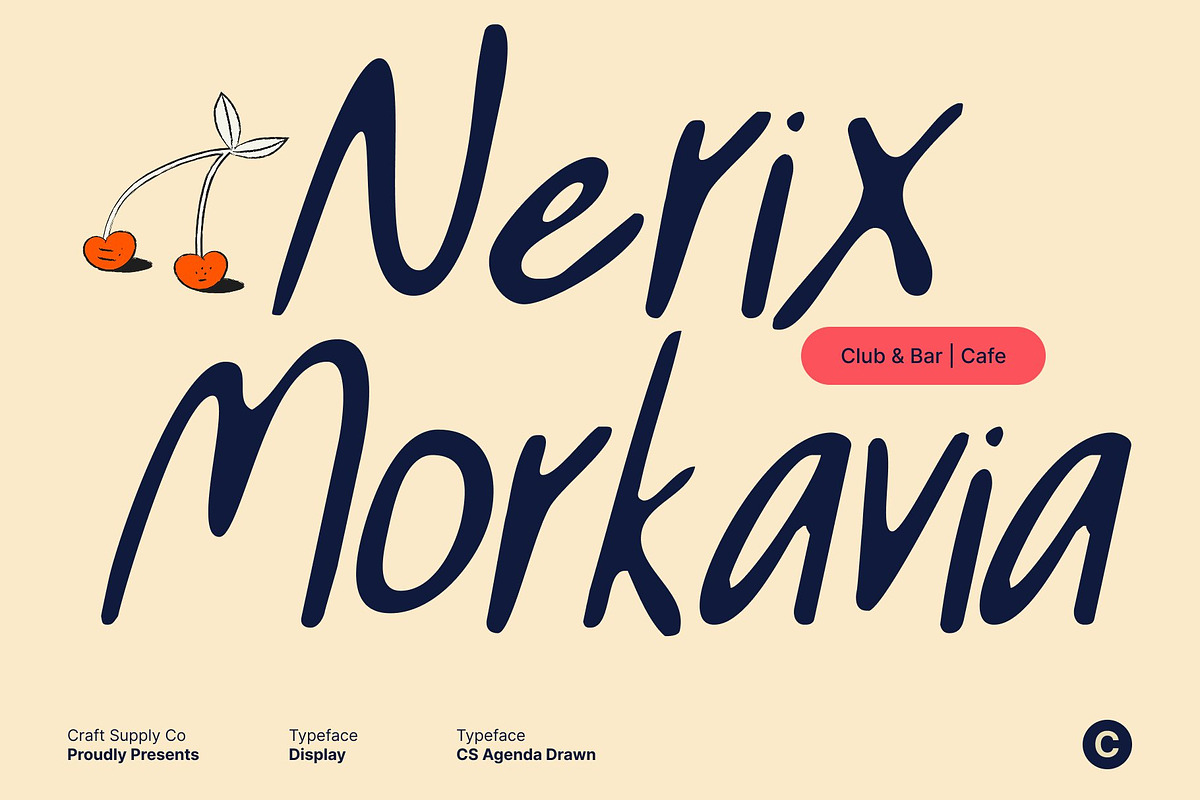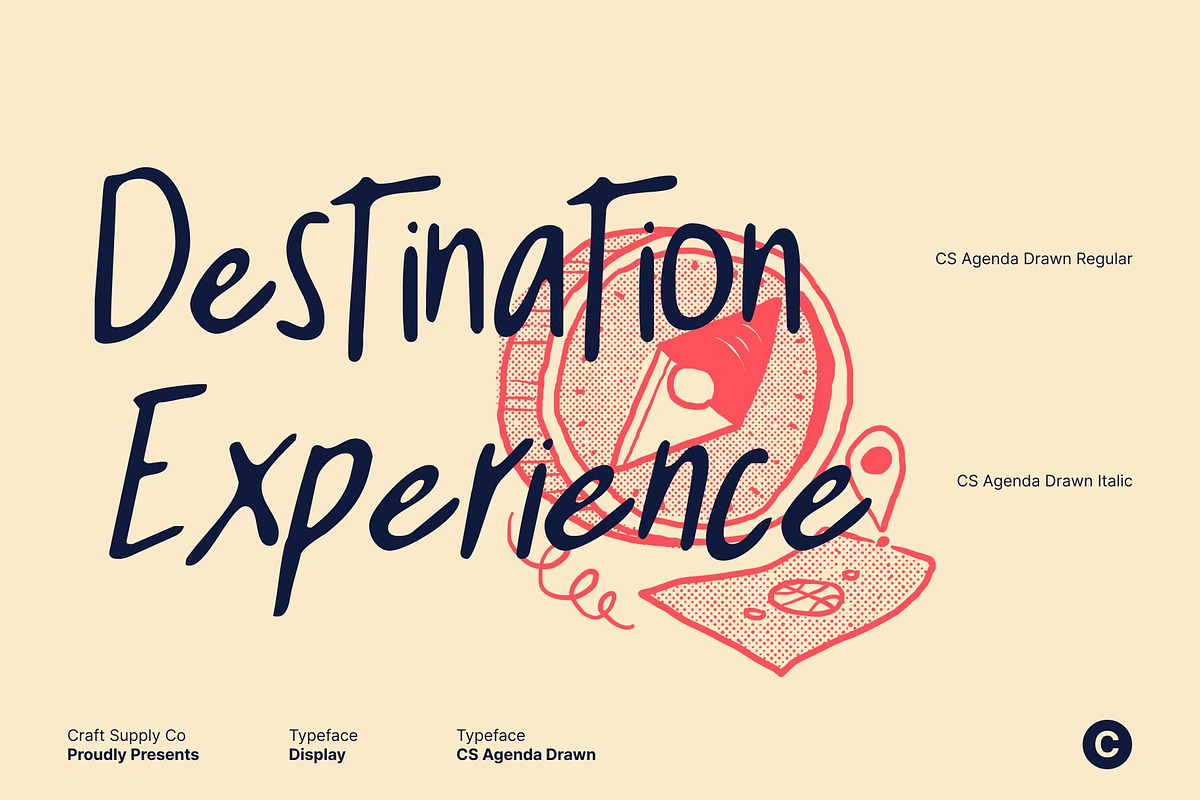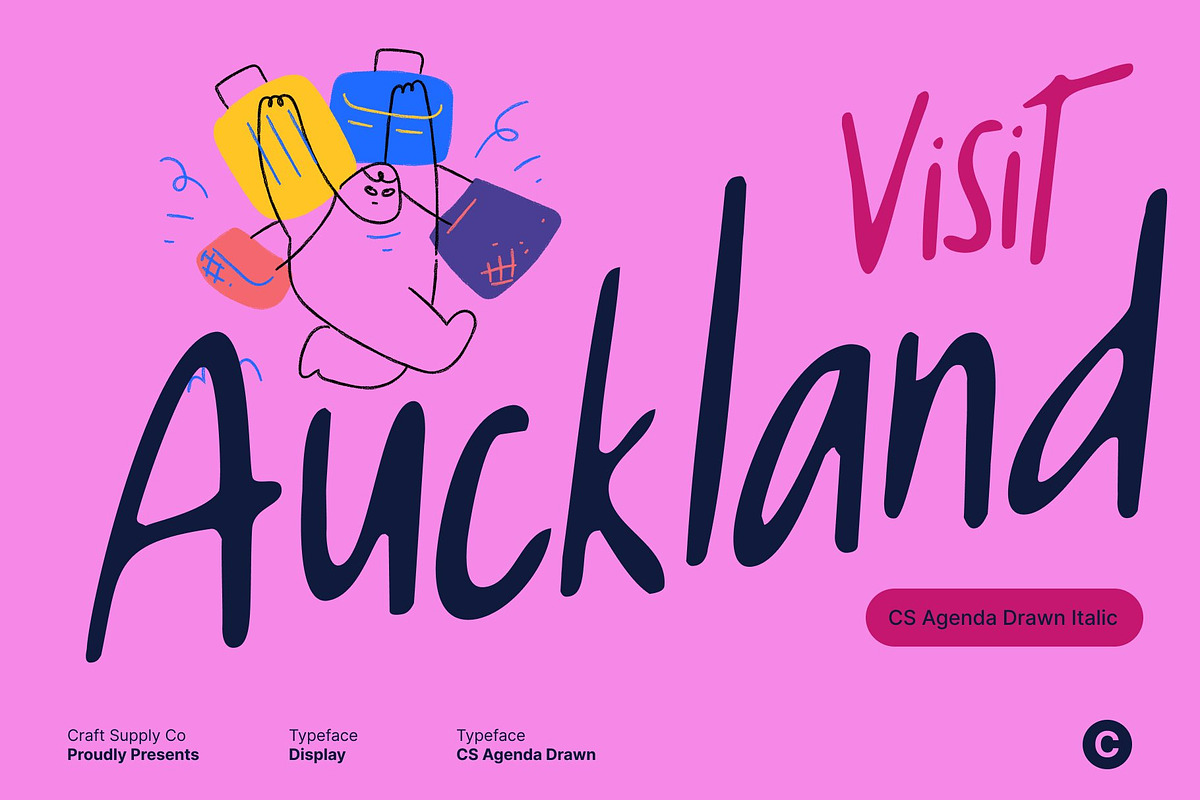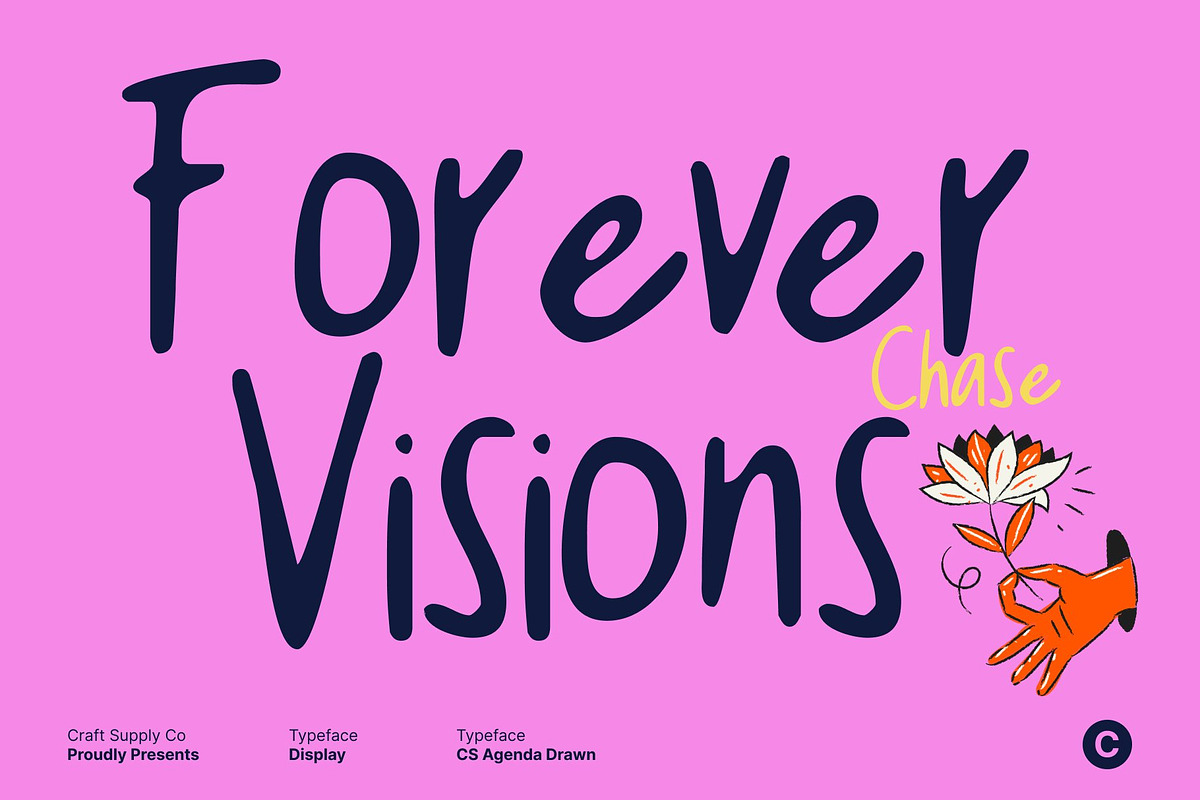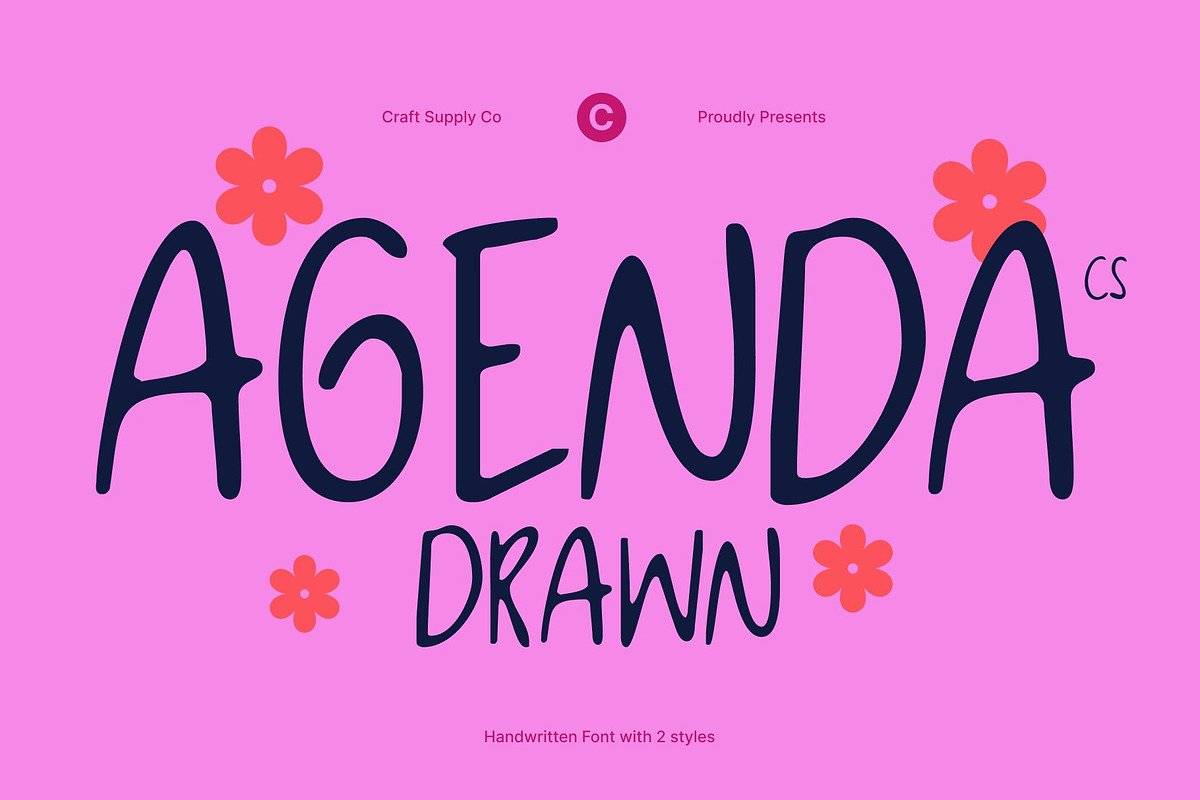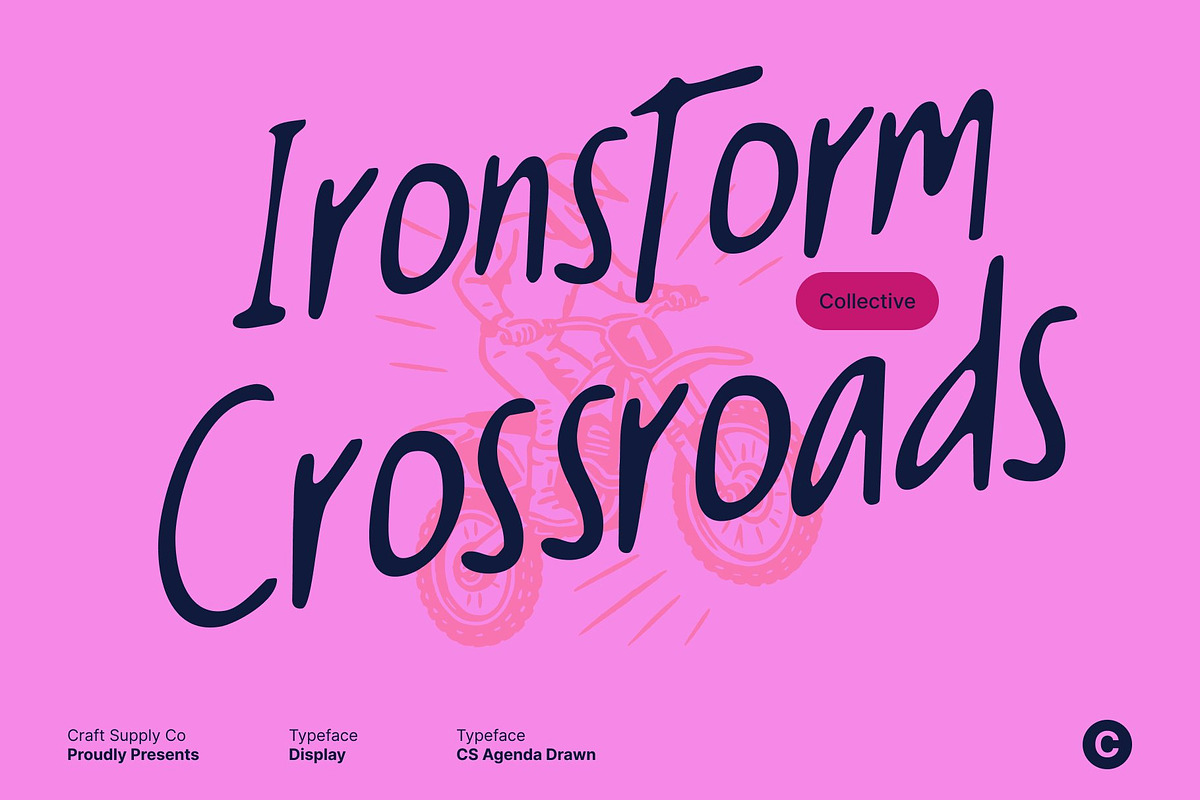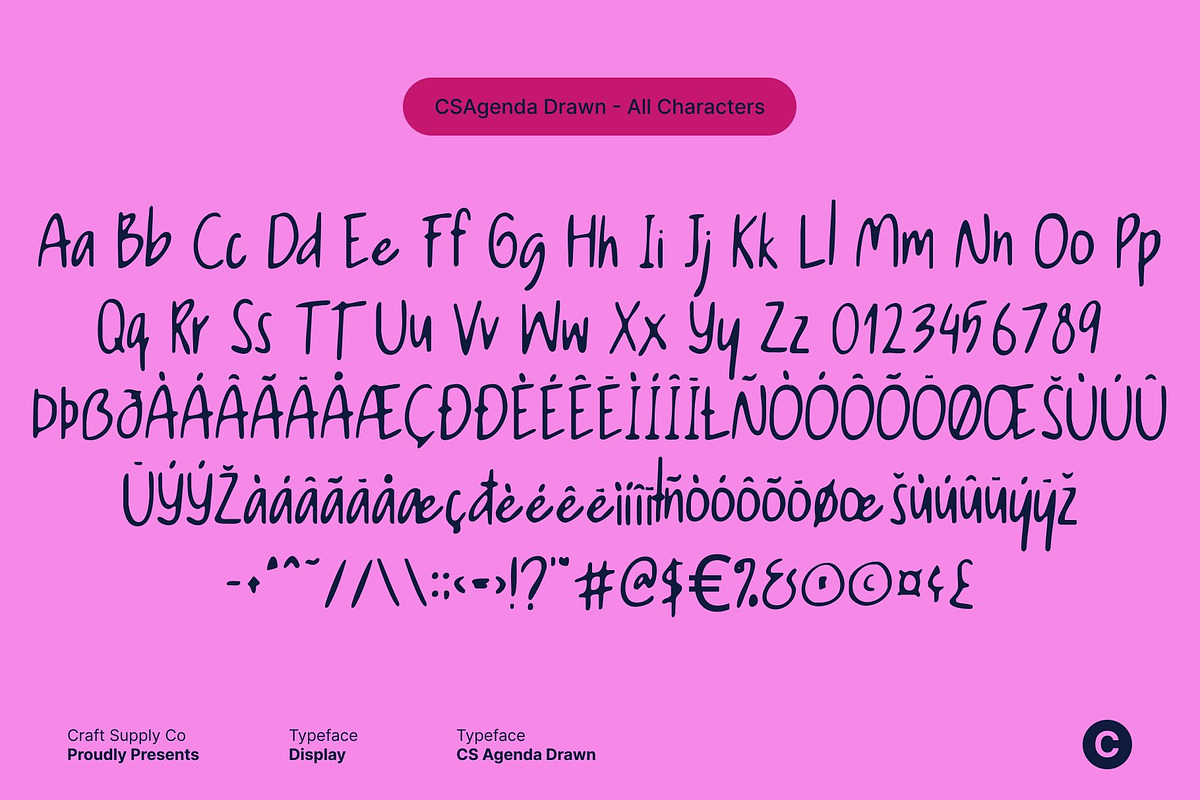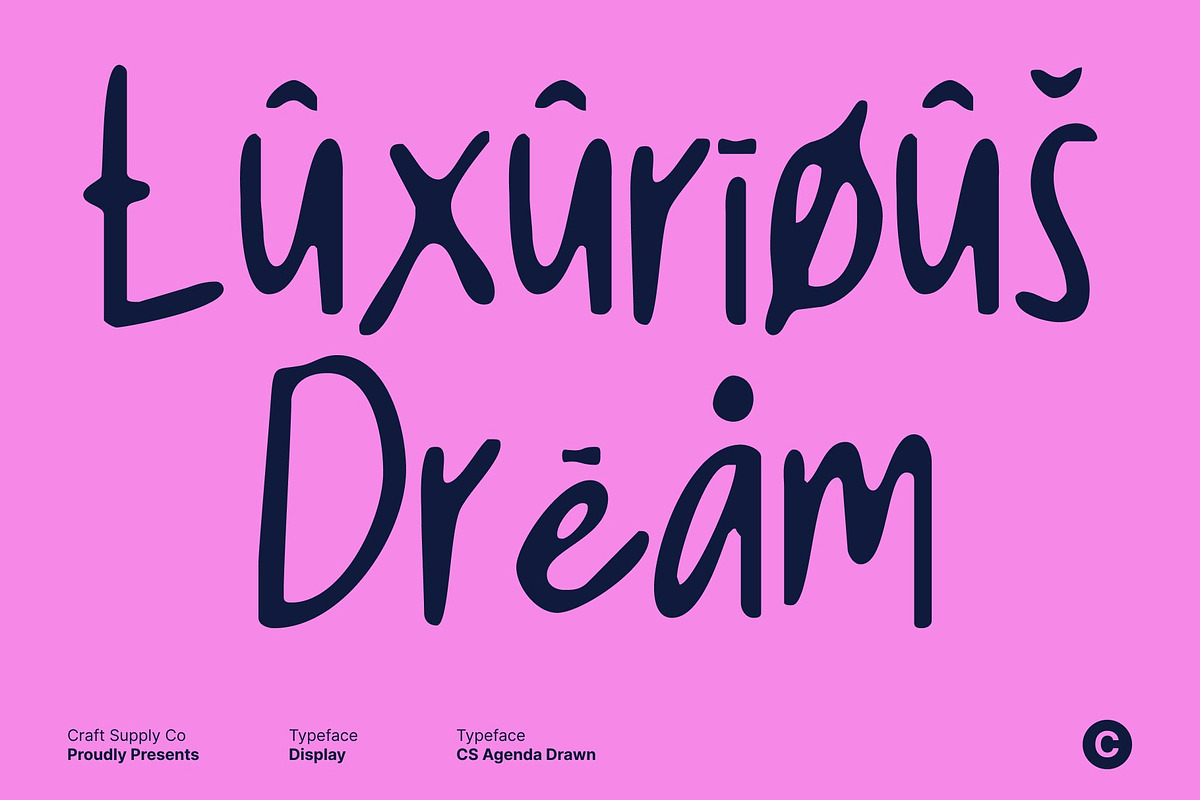
CS Agenda Drawn
CS Agenda Drawn – Handwritten Sans Font with Modern Personality
Casual Elegance with a Human Touch This blends the natural charm of handwritten strokes with the clean structure of a modern sans serif. The result is a typeface that feels friendly and approachable while remaining well-balanced and contemporary. Its relaxed character adds warmth without sacrificing clarity or style.
Readable Design with Subtle Handcrafted Texture A gentle drawn texture softens the geometric foundation, giving the font a personal and organic feel. This thoughtful balance ensures excellent readability across different sizes, making it suitable for both short statements and longer text while maintaining a distinctive visual personality.
Perfect for Branding and Creative Applications From branding and packaging to posters and digital content, this font delivers an authentic and inviting presence. Its handwritten nuance helps brands feel more human and expressive, making it ideal for creative projects that value originality, approachability, and warmth.
Professional Structure with Expressive Personality This font stands out by merging expressive handwriting with refined sans serif construction. This dual character allows it to move effortlessly between casual editorial layouts and polished professional designs, offering versatility, clarity, and a modern personality in every application.
- CS Agenda Drawn Regular
- CS Agenda Drawn Italic